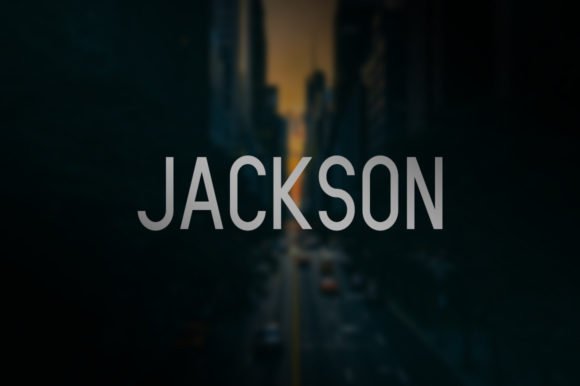
Discover the Versatility of Jackson Font
Have you ever found yourself staring at a blank page, trying to bring a creative idea to life, but struggling to find the right font to match your vision? You’re not alone. For designers, the search for the perfect font can be a daunting task, but what if I told you that there’s a font that can elevate your projects and make them stand out from the crowd?
Enter Jackson Font, a cool and simple sans serif font that’s perfect for a wide range of creative projects. Whether you’re designing a logo, creating a brochure, or building a website, Jackson Font is a versatile choice that can add a touch of sophistication and elegance to your work.
As a designer, you know how valuable it is to have a reliable font that can adapt to different projects and styles. Jackson Font is that font, and it’s worth adding to your arsenal of creative tools. With its clean lines and modern feel, Jackson Font is sure to bring a fresh perspective to your next project.
Jackson Font Key Features
- Font Family: Jackson Font is a sans-serif font family designed for digital use.
- Unique Characteristics: Jackson Font features a clean, modern design with a subtle rounded edge, making it ideal for use in digital interfaces, signage, and other applications where readability is crucial.
- Font Weight: Available in Light, Regular, Medium, Bold, and Heavy weights, offering flexibility for various design needs.
Designer Review: Jackson Font
Overall, I have mixed feelings about the Jackson Font. There are some aspects that I really like, while others leave room for improvement.
- Modern and Versatile Design: The font has a clean, modern aesthetic that makes it versatile for a wide range of applications.
- Legibility: The font is highly legible, making it suitable for body text, headings, and even display typography.
- Unique Character: Jackson Font has a distinctive personality that sets it apart from other sans-serif fonts.
- Lack of Italic Styles: The font is missing italic and bold italic styles, which can be limiting for designers who prefer to have a range of font weights.
- Not Ideal for Small Text: The font can become difficult to read when used in small sizes, making it less suitable for fine print or captions.
The Jackson Font has potential, but it falls short in certain areas. While it excels in terms of modern design and legibility, its limitations in terms of font styles and small text readability make it less appealing for certain projects. With some refinements, I believe the Jackson Font could become a solid choice for designers looking for a versatile sans-serif font.
Tips for Getting the Most Out of Jackson Font
Use the Jackson Font for headings and titles to add a touch of elegance to your designs.
It pairs well with modern and minimalist designs.
Experiment with different font sizes and colors to create a visually appealing effect.
The Jackson Font is ideal for use in:
– Modern business presentations
– Creative portfolios
– Branding materials
– Editorial content
Alternatives to “Jackson Font” for Designers
Playfair Display is a luxurious, high-end serif font perfect for creating elegant and sophisticated designs. It’s ideal for use in titles, headings, and other prominent text elements. Compared to Jackson Font, Playfair Display has a more refined and classic look, making it suitable for high-end branding, fashion, and luxury products.
Great Vibes is a beautiful, modern script font that’s perfect for creating a friendly and approachable atmosphere. It’s ideal for use in logos, headings, and body text. Compared to Jackson Font, Great Vibes has a more relaxed and casual feel, making it suitable for creative, tech, and lifestyle brands.